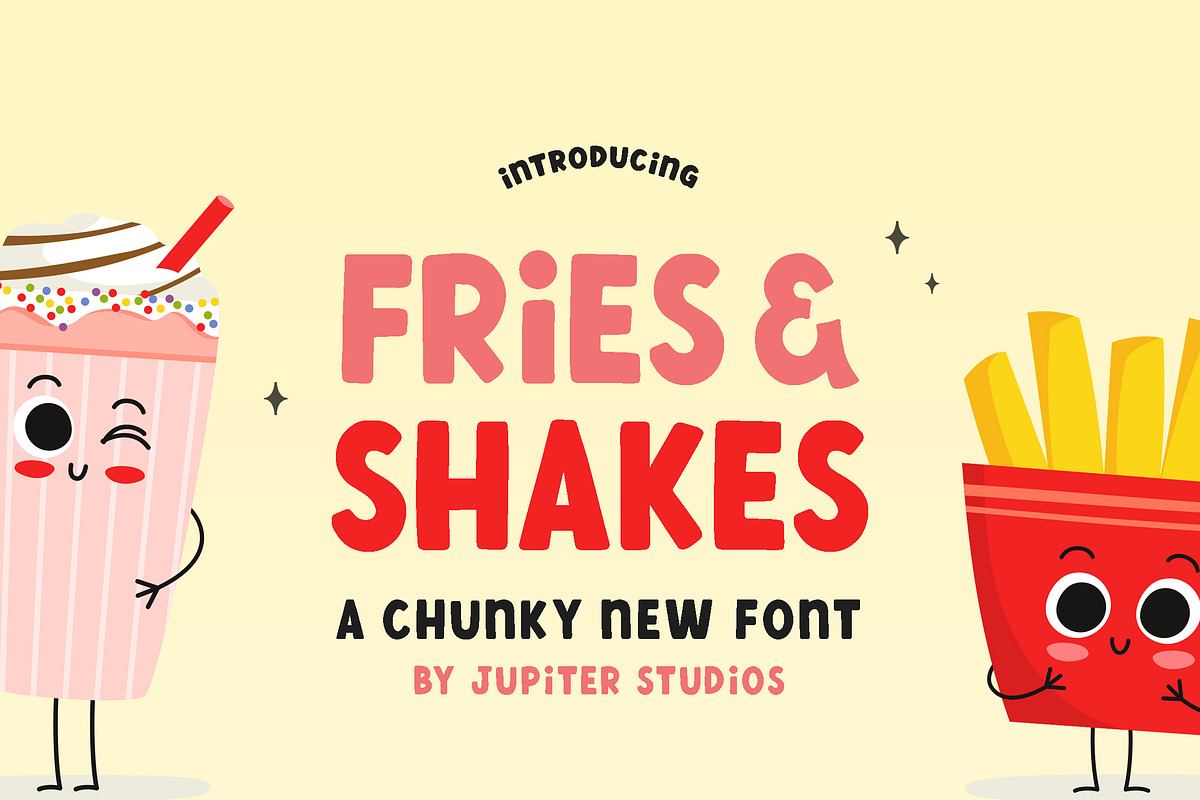
Fries and Shakes Font Free Download is a fun, playful typeface designed to bring a touch of nostalgia and whimsy to your creative projects. With its bubbly shapes and rounded curves, this font is perfect for food branding, restaurant logos, menu designs, packaging, and anything that needs a cheerful, retro vibe.
Whether you're creating a fun, casual brand identity or a vibrant promotional piece, Fries and Shakes adds a flavorful, friendly touch to your typography. It’s the perfect font for designers who want their work to feel fresh and inviting.